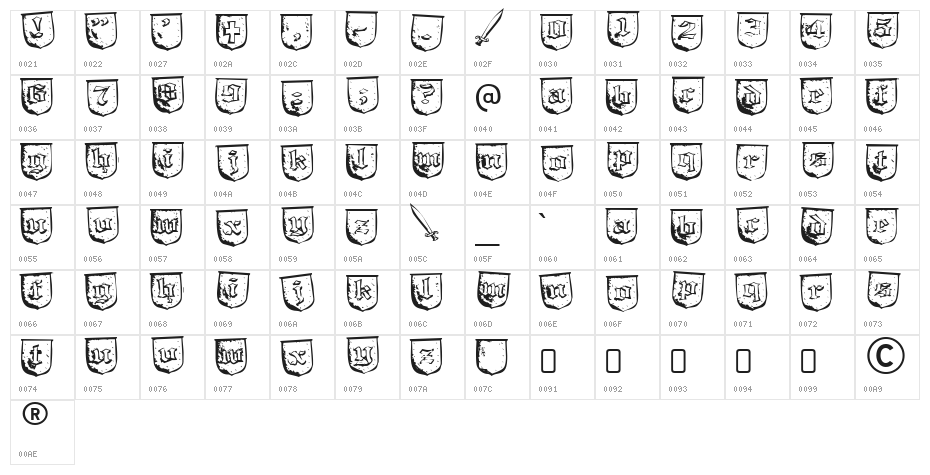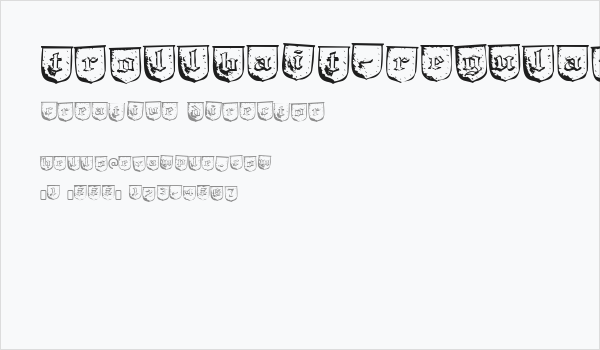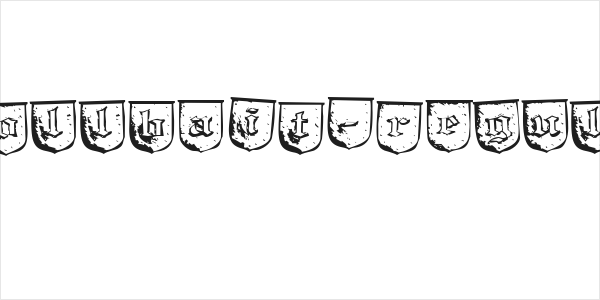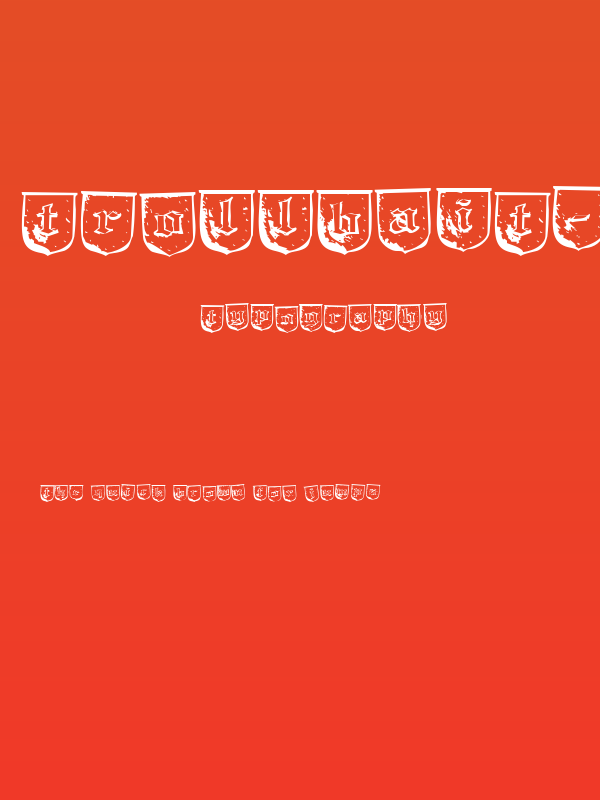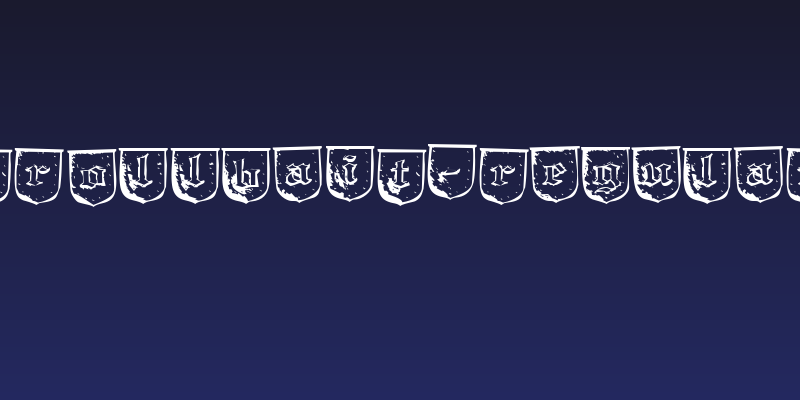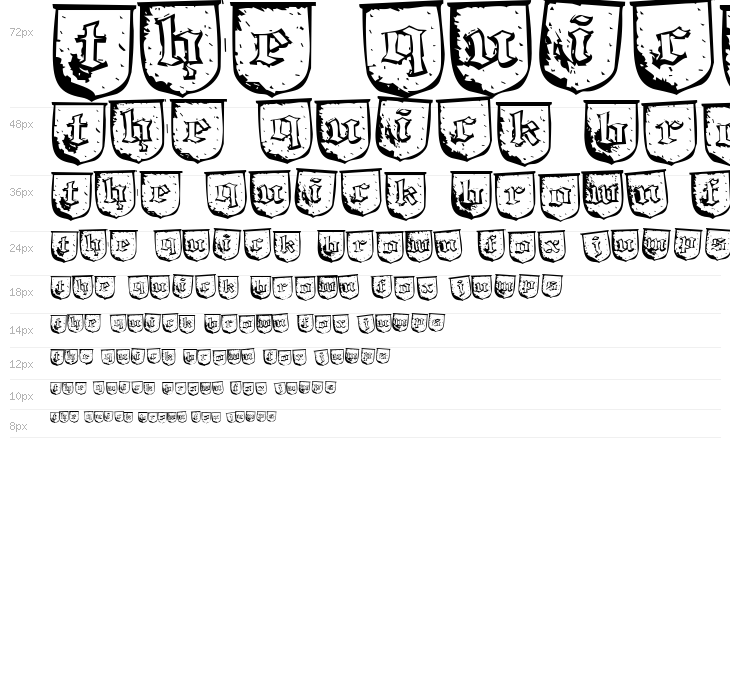
TrollBait-Regular Font
TrollBait-Regular Description
This font features a medieval, gothic style with a distressed, textured appearance. Each character is enclosed within a shield-like shape, adding a unique and decorative element. The letters have a bold, blackletter influence, with sharp angles and intricate details that evoke a sense of antiquity and mystery. The numbers and special characters maintain this theme, ensuring a cohesive look across all glyphs. The overall design is reminiscent of heraldic symbols, making it ideal for projects that require a historical or fantasy aesthetic.
| Overall Style | Decorative, Vintage |
| Proposed Projects | Ideal for fantasy-themed designs, medieval event posters, video game graphics, or historical fiction book covers. |